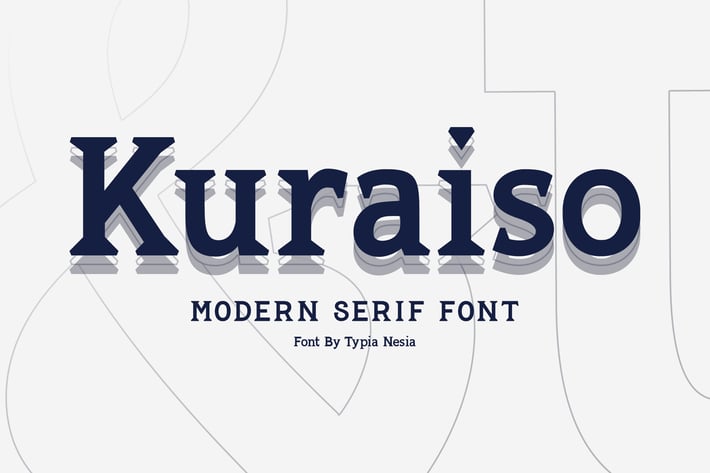
Kuraiso Serif Font
Kuraiso is Modern Serif Font
Kuraiso Serif font is perfect for your up coming projects. Such as logo branding, editorial design, stationery design, sport design, blog design, modern advertising design, card invitation, art quote, home decor, book/cover title, special events and any more.